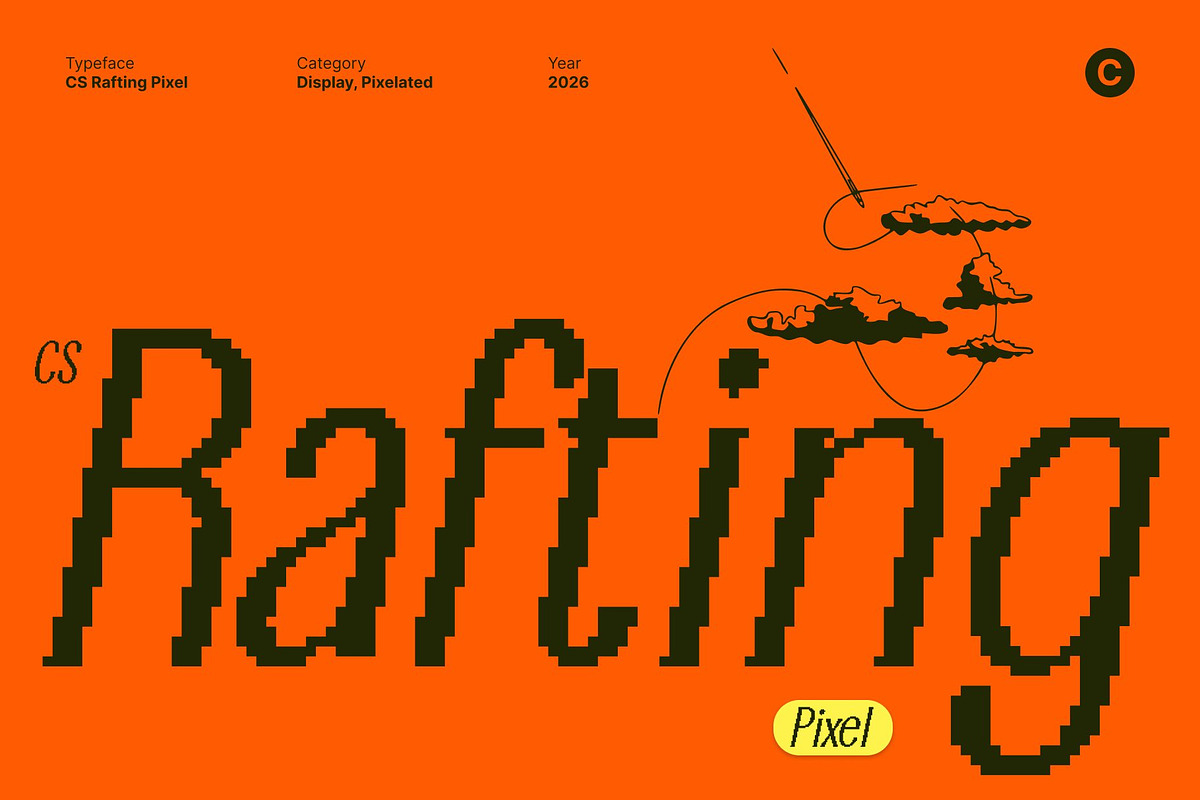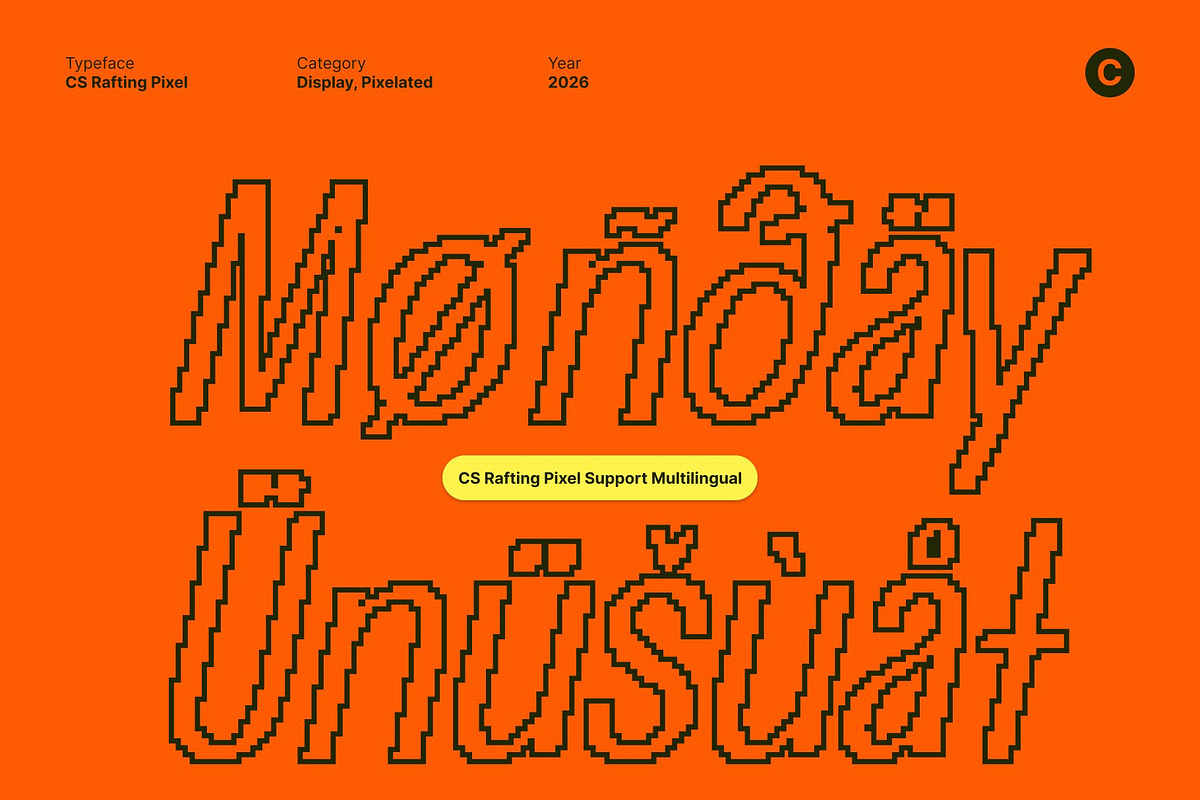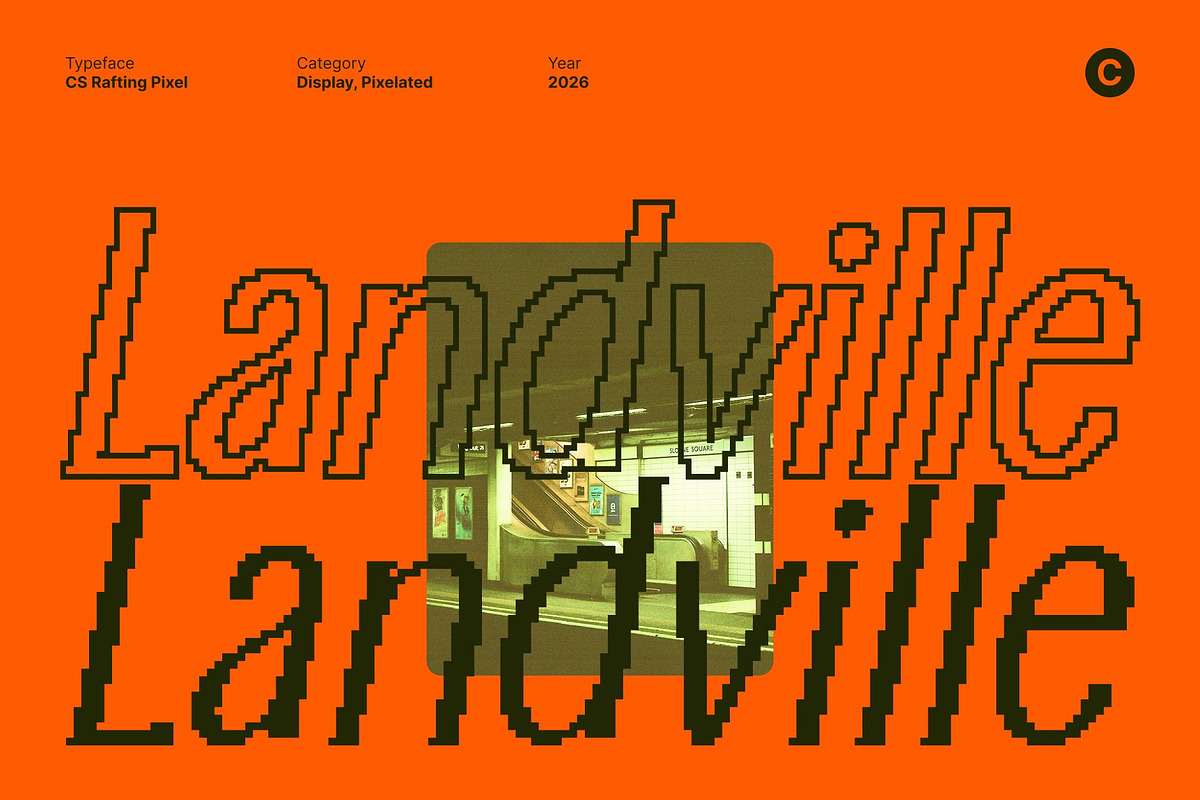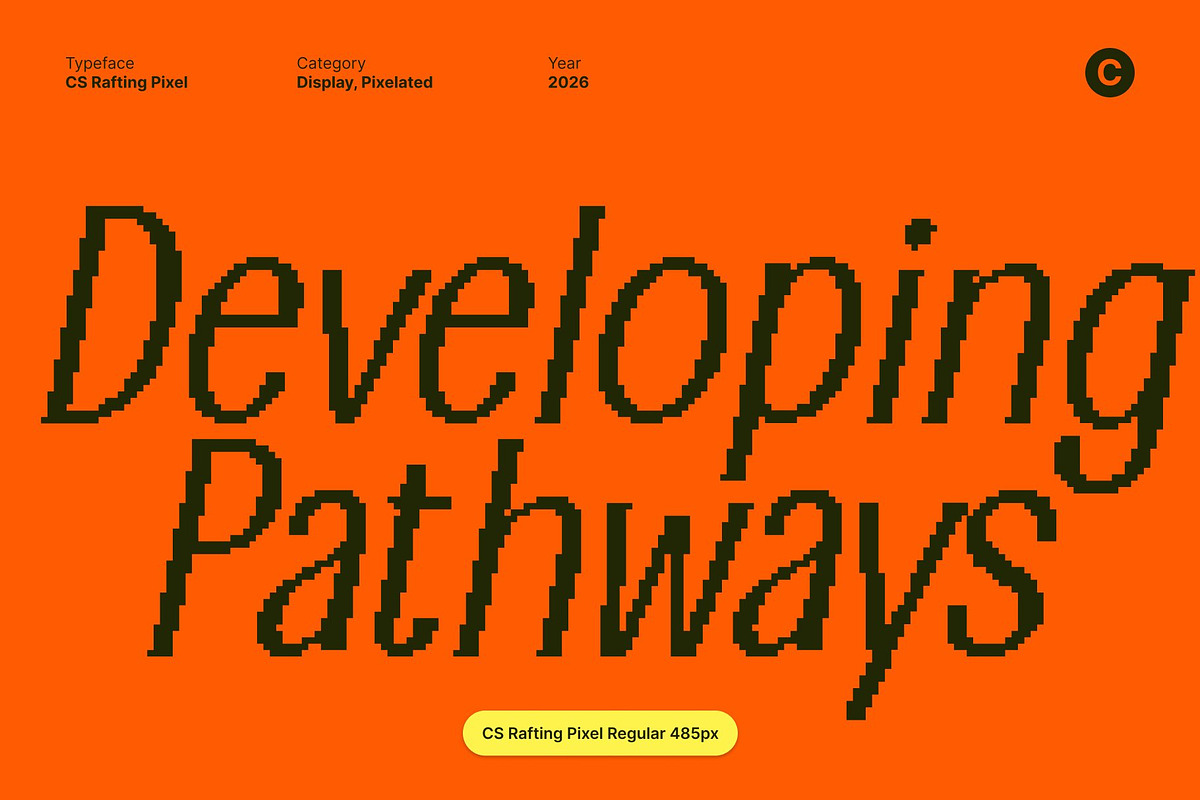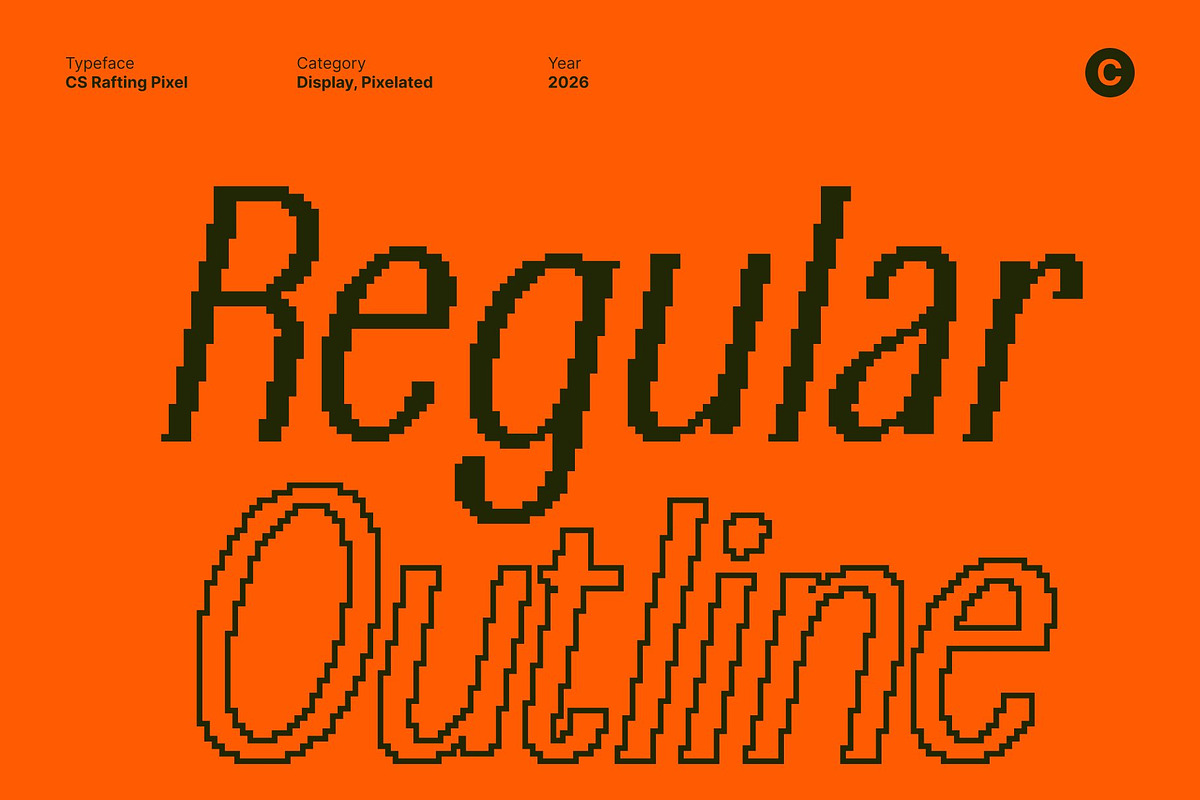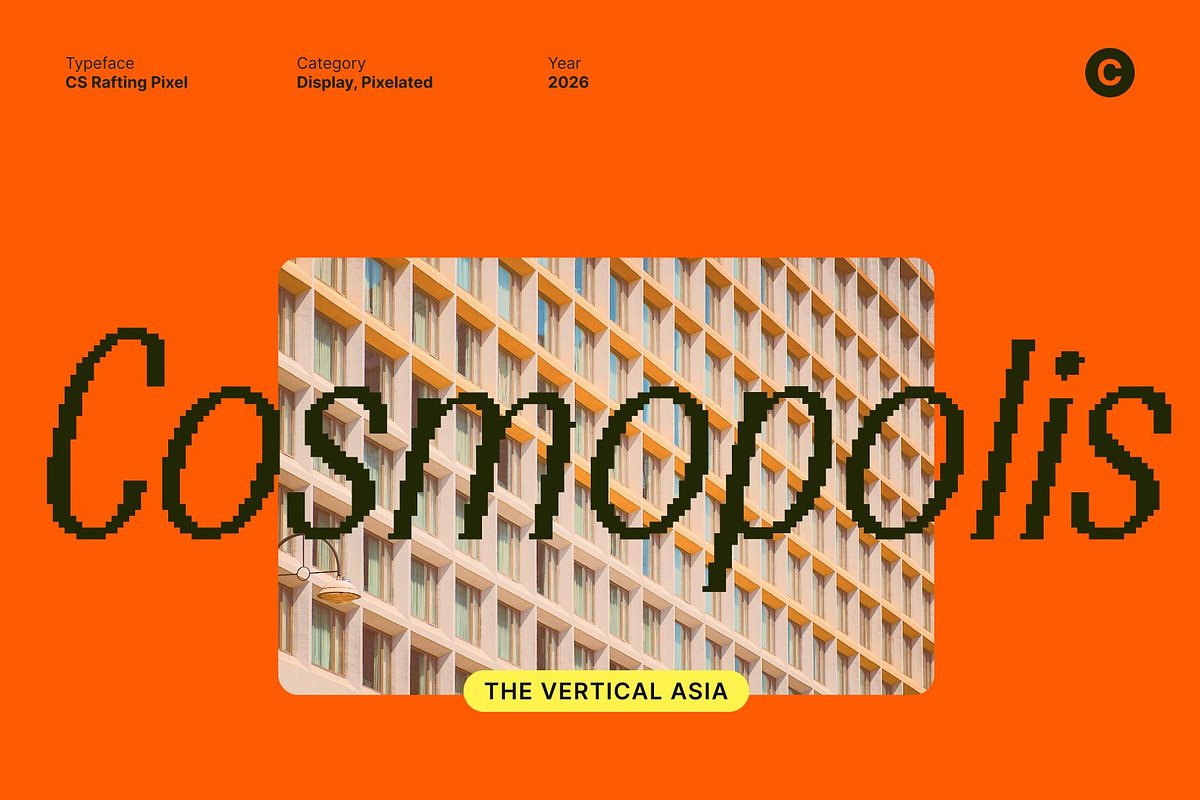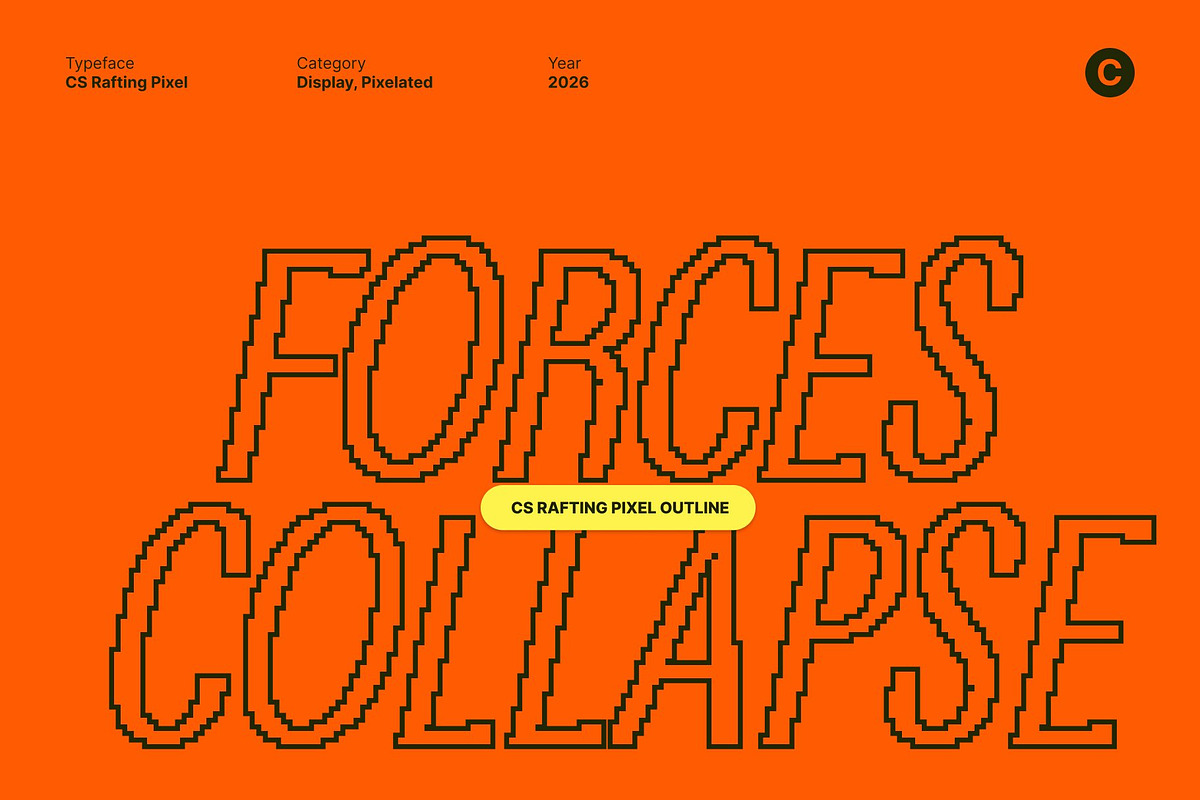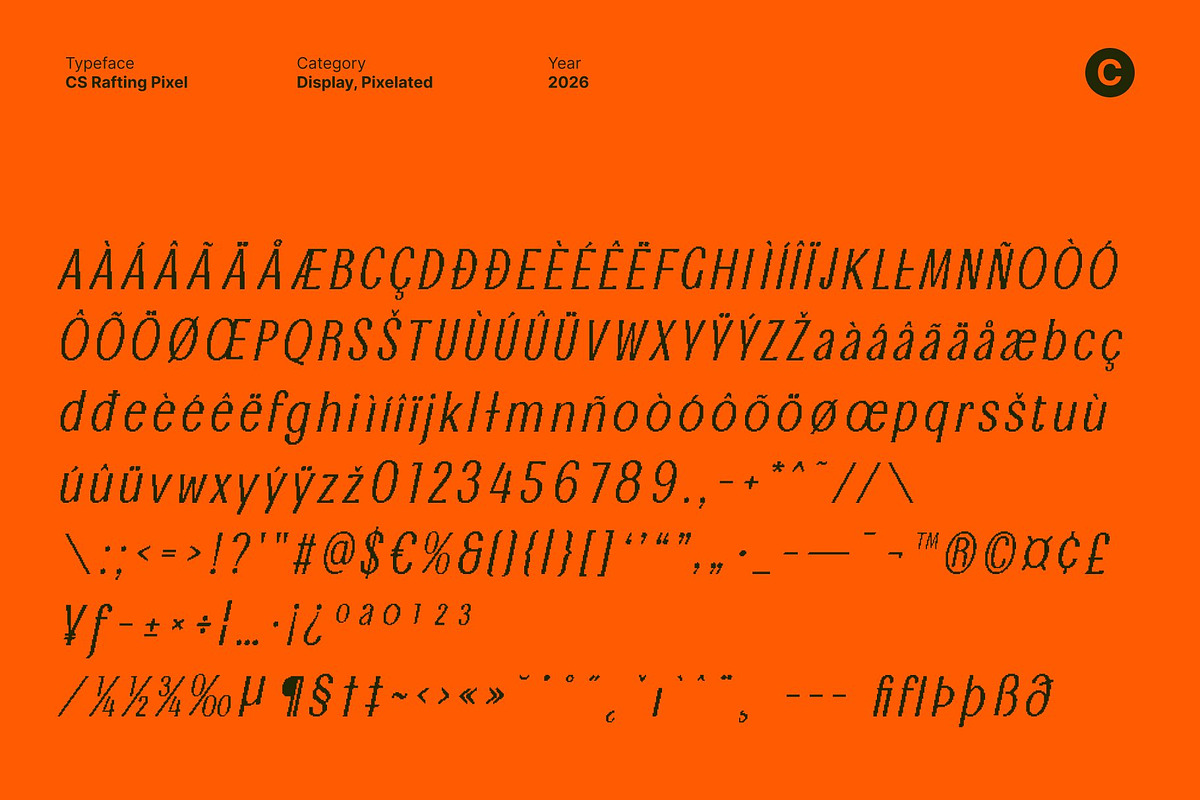
CS Rafting Pixel
CS Rafting Pixel – Modern Sans Serif with Elongated Strength
Modern Sans Serif with Confident Structure This is a modern sans serif font built to express confidence through clean construction and strong proportions. Its solid structure and balanced weight create a professional, contemporary presence that feels assertive yet refined perfect for clear and impactful visual communication.
Elongated Letterforms for Power and Readability Defined by elongated vertical forms, this font introduces a distinctive rhythm that enhances both strength and clarity. The extended proportions add elegance while reinforcing legibility, allowing text to appear focused, structured, and visually commanding across different scales.
Clean Pixel Design with Modern Character Rooted in minimalist principles, this font maintains sharp, precise letterforms with subtle nuances that prevent rigidity. The clean pixel structure ensures adaptability across digital and print environments while preserving a modern, confident personality.
Ideal for Headlines, Branding, and Editorial Use Designed for high-impact applications, excels in headlines, branding systems, editorial layouts, posters, and digital content. Its elongated elegance and modern clarity make it a strong typographic choice for designs that demand confidence, precision, and contemporary style.